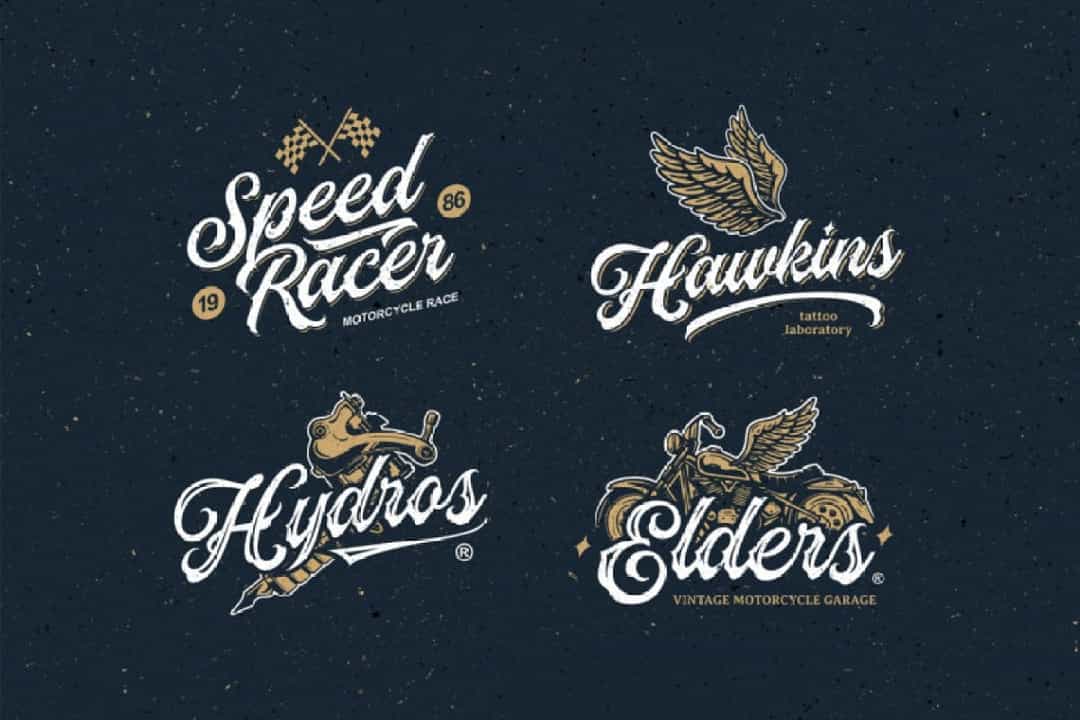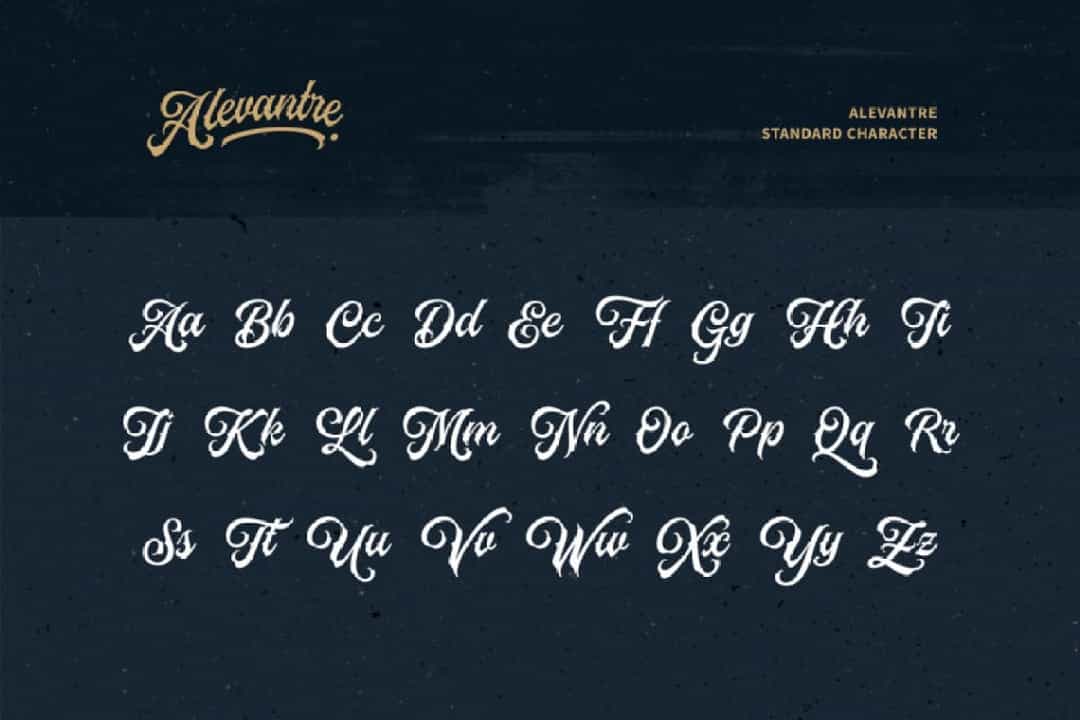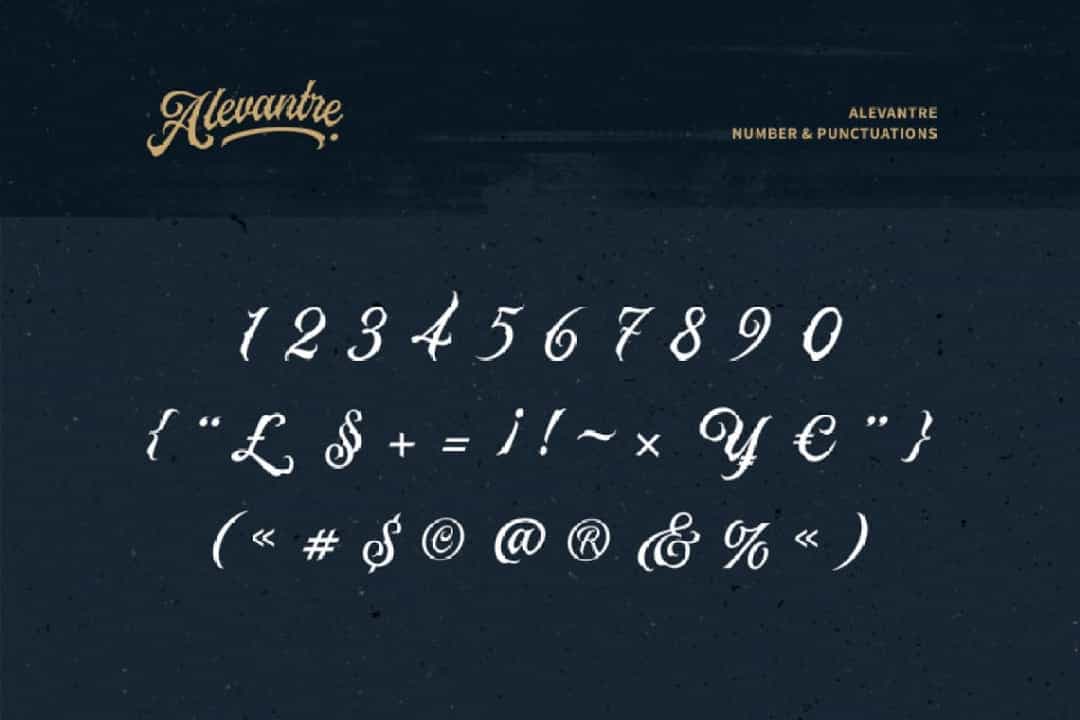
Alevantre Font is a font with the retro modern, contemporary and vintage feel in its. The font is inspired by Dinamic culture, badges and sign designs. This font is ideal to use in your design projects like posters, logos. Invitation packaging, cards badges, logotypes labels, apparel design and more.